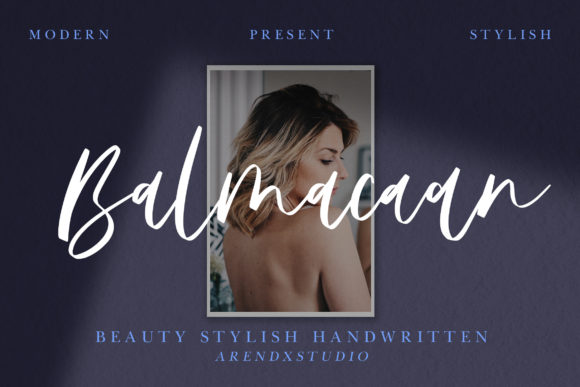
Balmacaan Font: Elevate Your Designs with a Touch of Handwritten Elegance
In the world of typography, fonts play a crucial role in conveying the tone and personality of a design. For designers and crafters looking to add a touch of elegance and sophistication to their projects, the Balmacaan font is an excellent choice. This beautiful and stylish handwritten font is perfect for a wide range of applications, from branding and logos to wedding designs, media posts, and product packaging.
The Unique Charm of Balmacaan
Balmacaan is a distinctive handwritten font that boasts a unique charm. Its characters are carefully crafted to exude a sense of elegance and refinement, making it ideal for designers who want to create a lasting impression. Whether you’re working on a logo, invitation, or product design, Balmacaan’s handwritten feel adds a personal touch that sets your project apart from the rest.
One of the standout features of Balmacaan is its versatility. This splendid typeface can be used for a wide range of projects, including:
- Branding projects: Create a lasting impression with Balmacaan’s elegant and sophisticated feel.
- Logos: Add a touch of personality to your logo with Balmacaan’s unique handwritten characters.
- Wedding designs: Make your wedding invitations, stationery, and decorations truly special with Balmacaan’s romantic feel.
- Media posts: Elevate your social media posts with Balmacaan’s stylish and eye-catching typography.
- Advertisements: Grab attention with Balmacaan’s bold and elegant font.
- Product packaging: Add a touch of luxury to your product packaging with Balmacaan’s sophisticated feel.
- Product designs: Create stunning product designs with Balmacaan’s unique and elegant typography.
- Labels: Make your labels stand out with Balmacaan’s stylish and handwritten feel.
- Photography: Add a touch of elegance to your photography with Balmacaan’s beautiful and refined typography.
- Watermarks: Protect your images with Balmacaan’s subtle and sophisticated watermark.
- Invitations: Create stunning invitations with Balmacaan’s elegant and refined feel.
- Stationery: Elevate your stationery with Balmacaan’s stylish and sophisticated typography.
Why Choose Balmacaan?
So, why choose Balmacaan for your design projects? Here are just a few reasons:
- Unique and distinctive: Balmacaan’s handwritten characters are unlike any other font, making it perfect for designers who want to stand out.
- Elegant and sophisticated: Balmacaan’s refined feel makes it ideal for projects that require a touch of luxury and elegance.
- Versatile: Balmacaan can be used for a wide range of projects, from branding and logos to wedding designs and product packaging.
- Easy to read: Despite its elegant feel, Balmacaan is easy to read, making it perfect for body text and headlines.
Tips for Using Balmacaan
To get the most out of Balmacaan, here are a few tips:
- Use it sparingly: Balmacaan is a statement font, so use it sparingly to make a lasting impression.
- Pair it with a sans-serif font: Pair Balmacaan with a sans-serif font to create a striking contrast.
- Experiment with colors: Balmacaan looks stunning in a range of colors, so don’t be afraid to experiment.
In conclusion, Balmacaan is a beautiful and stylish handwritten font that is perfect for designers and crafters looking to add a touch of elegance and sophistication to their projects. With its unique charm, versatility, and ease of use, Balmacaan is an excellent choice for a wide range of applications. Whether you’re working on a branding project, logo, wedding design, or product packaging, Balmacaan is sure to elevate your design to the next level.